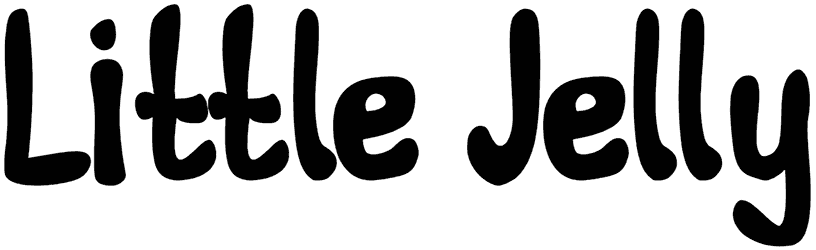
Little Jelly Font
Little Jelly helps you reach your goals if you want to energize your audience. This fancy font has a playful form and creates a new experience. You may use Little Jelly for various cases, such as posters, cartoons, and animations.
Moreover, this cartoon font’s letters have a bold shape with soft edges, creating a friendly feeling. They also seem cute to the viewers, so take Little Jelly and enjoy the vibe.